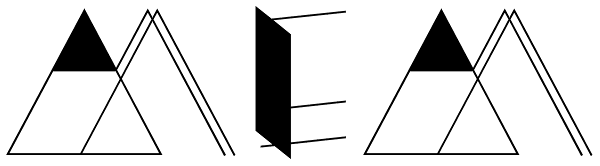
MeM
MeM is an eccentric experimental type system created by Elena Schädel and Jakob Runge in 2012. It produces many personalities, each individual and emotive. You will never know which of the alternating letters is going to occur next. Basically, at...